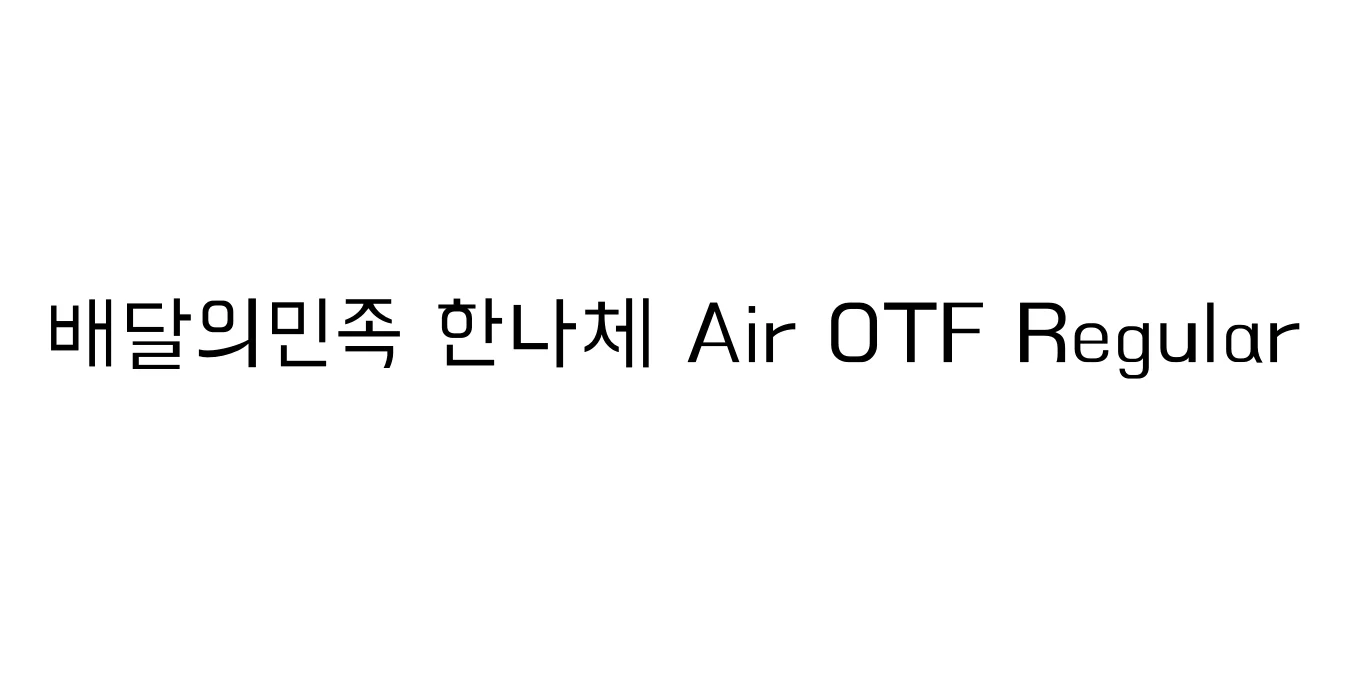
배달의민족 한나체 Air OTF Regular
Designed by Woowa Brothers
Baemin Hanna Air is a lighter, more refined iteration of the iconic 'Hanna' typeface developed by Woowa Brothers. Inspired by the hand-painted shop signs of Korea in the 1960s and 70s, the original Hanna font captured a nostalgic, bold aesthetic. Hanna Air was specifically engineered to translate this unique character into a weight suitable for long-form reading and digital interfaces, offering improved legibility and a modern, airy feel.
By maintaining the characteristic asymmetric proportions and stroke endings of its predecessor while significantly reducing the stroke weight, Hanna Air bridges the gap between vintage charm and contemporary utility. It is part of the 'Baemin' series of fonts, which are widely celebrated for their contribution to Hangeul typography and are distributed freely to encourage creative expression across various media platforms.
배달의민족 한나체 Air OTF Regular Best Uses
Ideal for long-form reading on digital screens due to its high legibility.
Perfect for UI elements that require a clean and modern Korean aesthetic.
Great for brand identities that seek a balance between tradition and modernity.
Excellent choice for e-books, blogs, and educational materials.